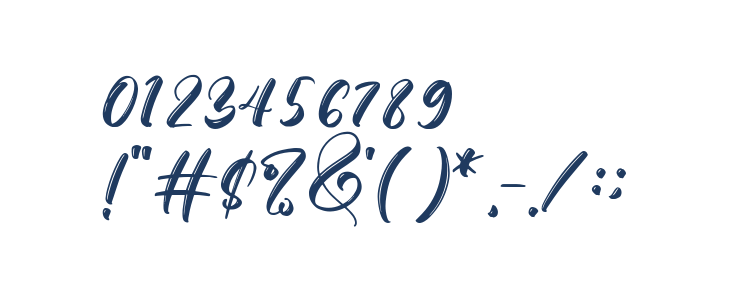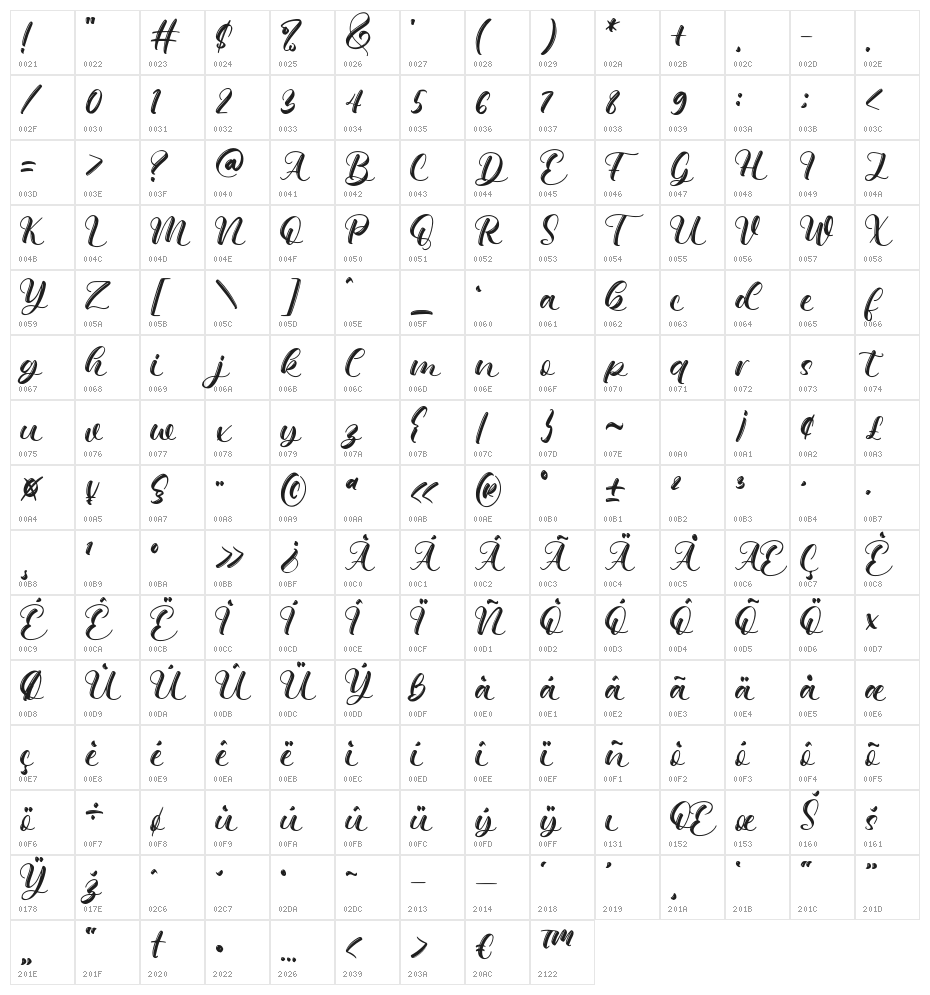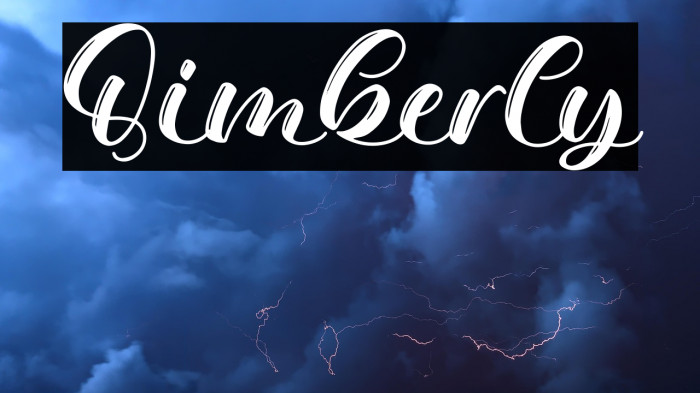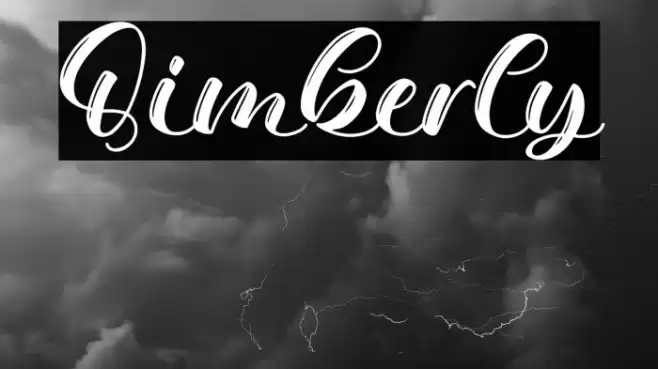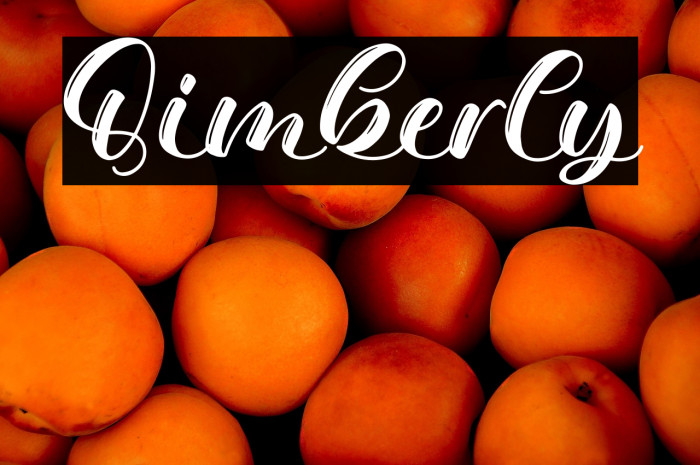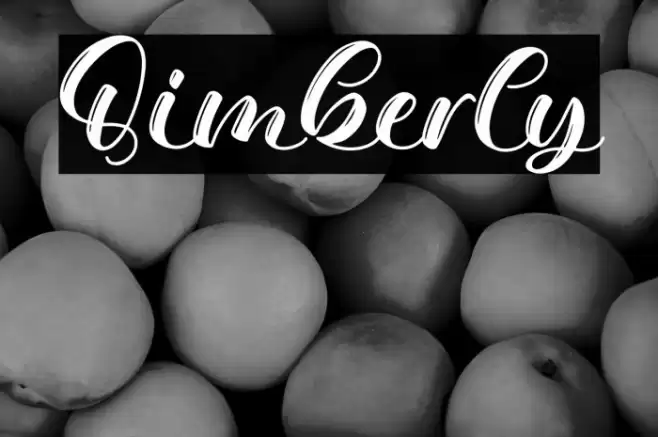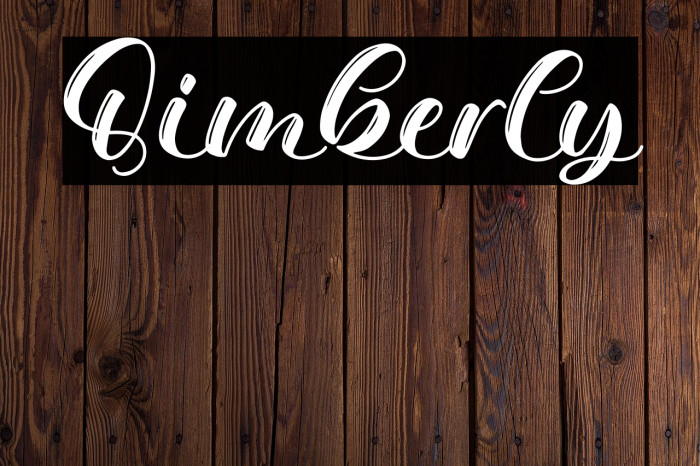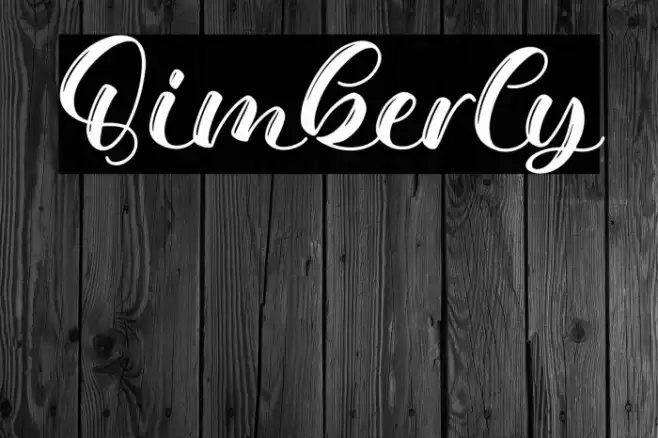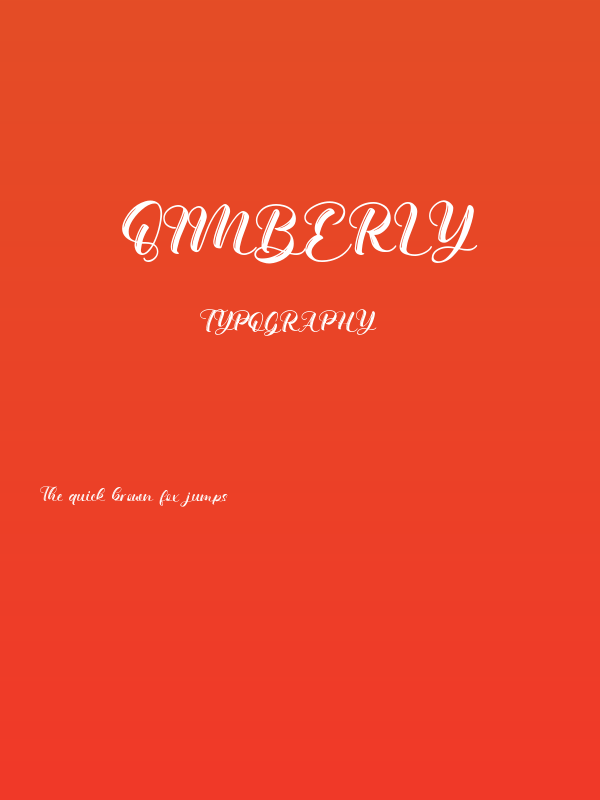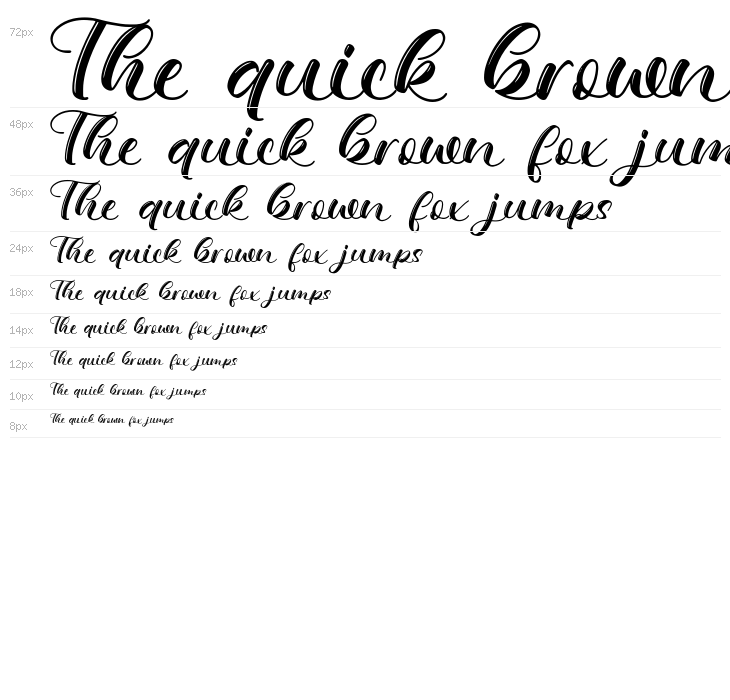
Qimberly Font
Qimberly Description
This font features a flowing, cursive style with elegant loops and swashes, giving it a sophisticated and artistic appearance. The characters are connected, creating a sense of continuity and fluidity. The uppercase letters are bold and prominent, while the lowercase letters maintain a consistent flow, enhancing readability. The numbers and special characters are designed to match the overall cursive theme, adding a touch of elegance to any text. This font is ideal for projects that require a personal, handwritten touch, such as invitations, greeting cards, and branding materials.
| Proposed Projects | Ideal for invitations, greeting cards, branding, and artistic projects. |